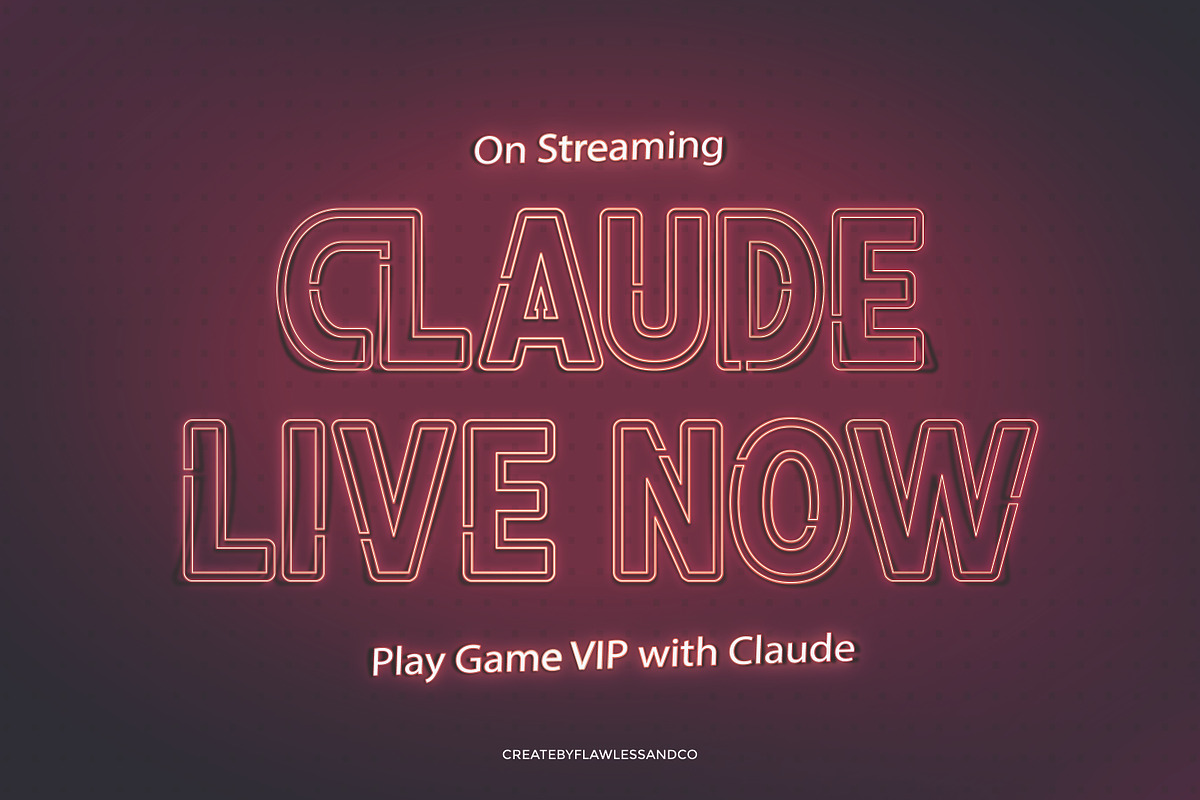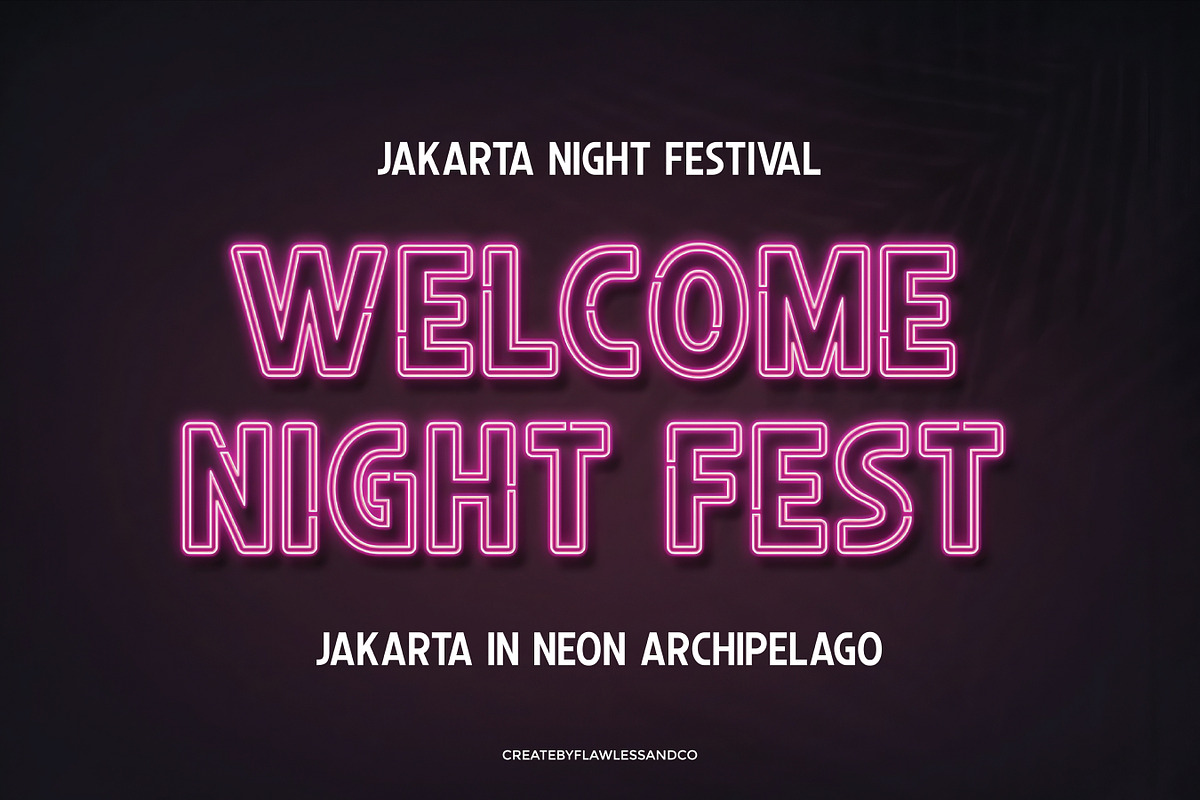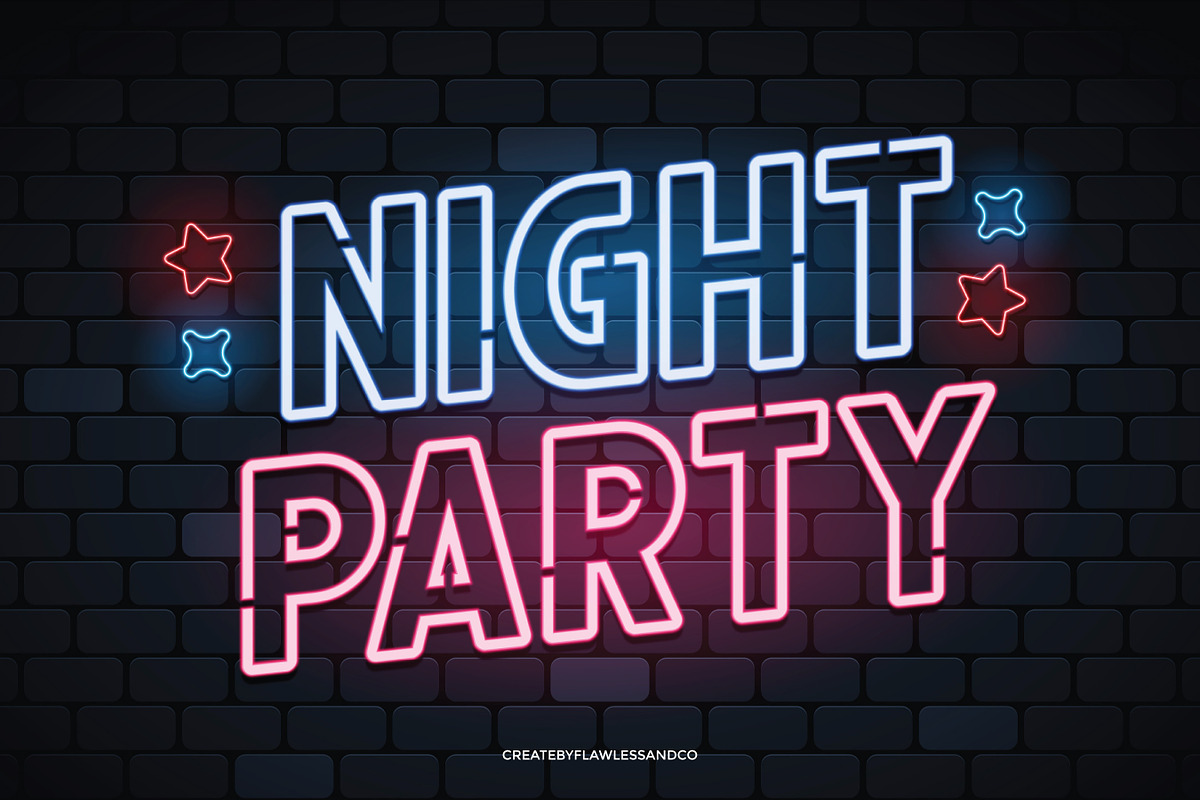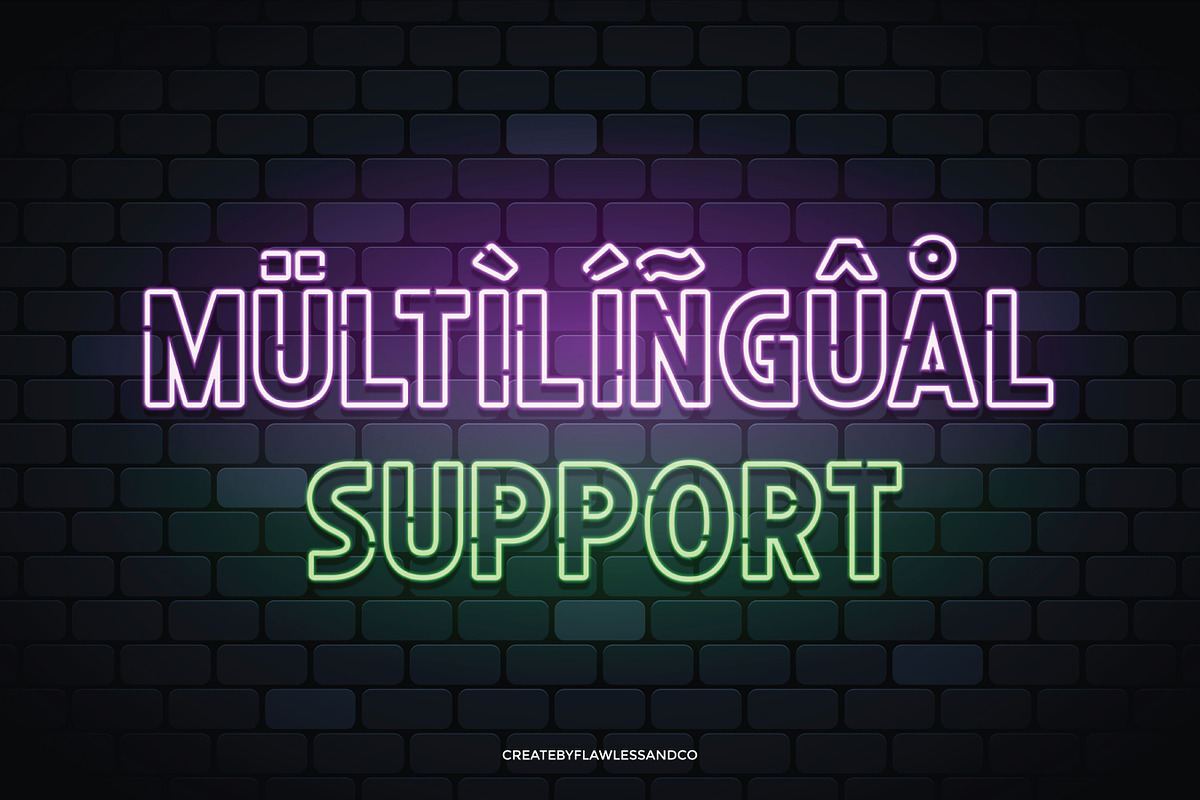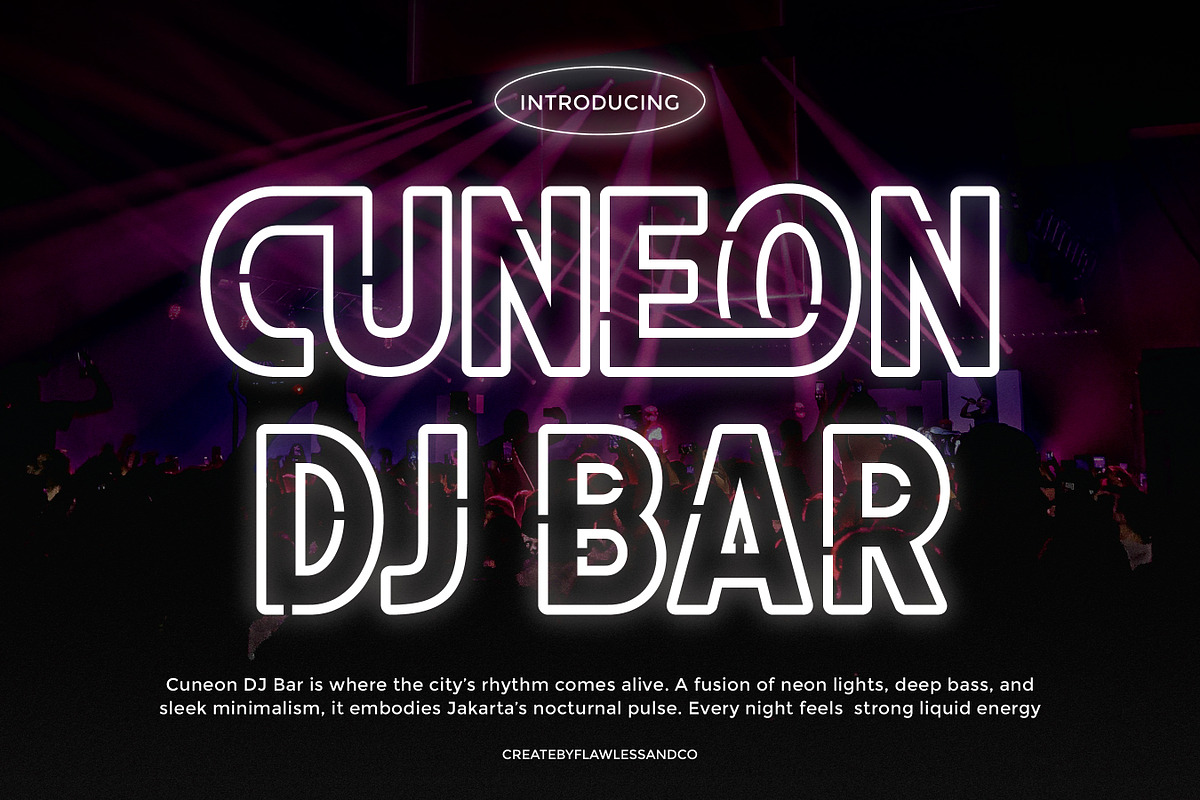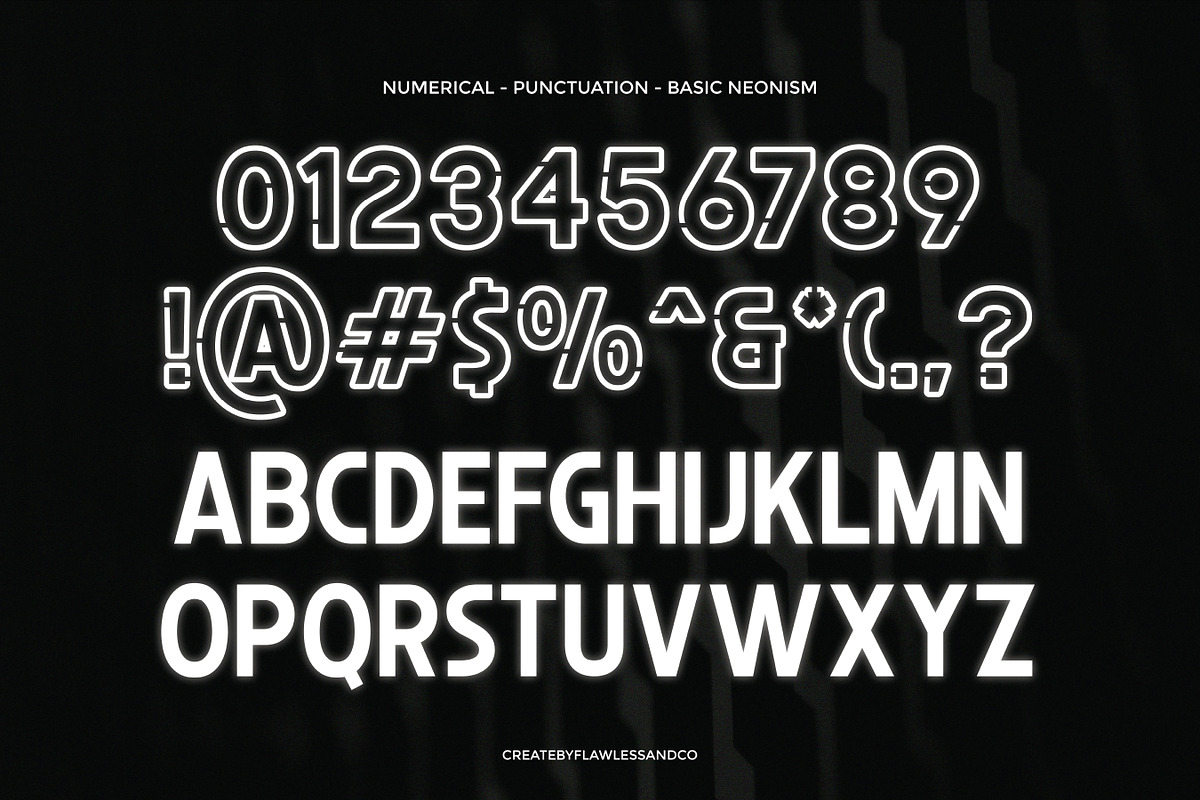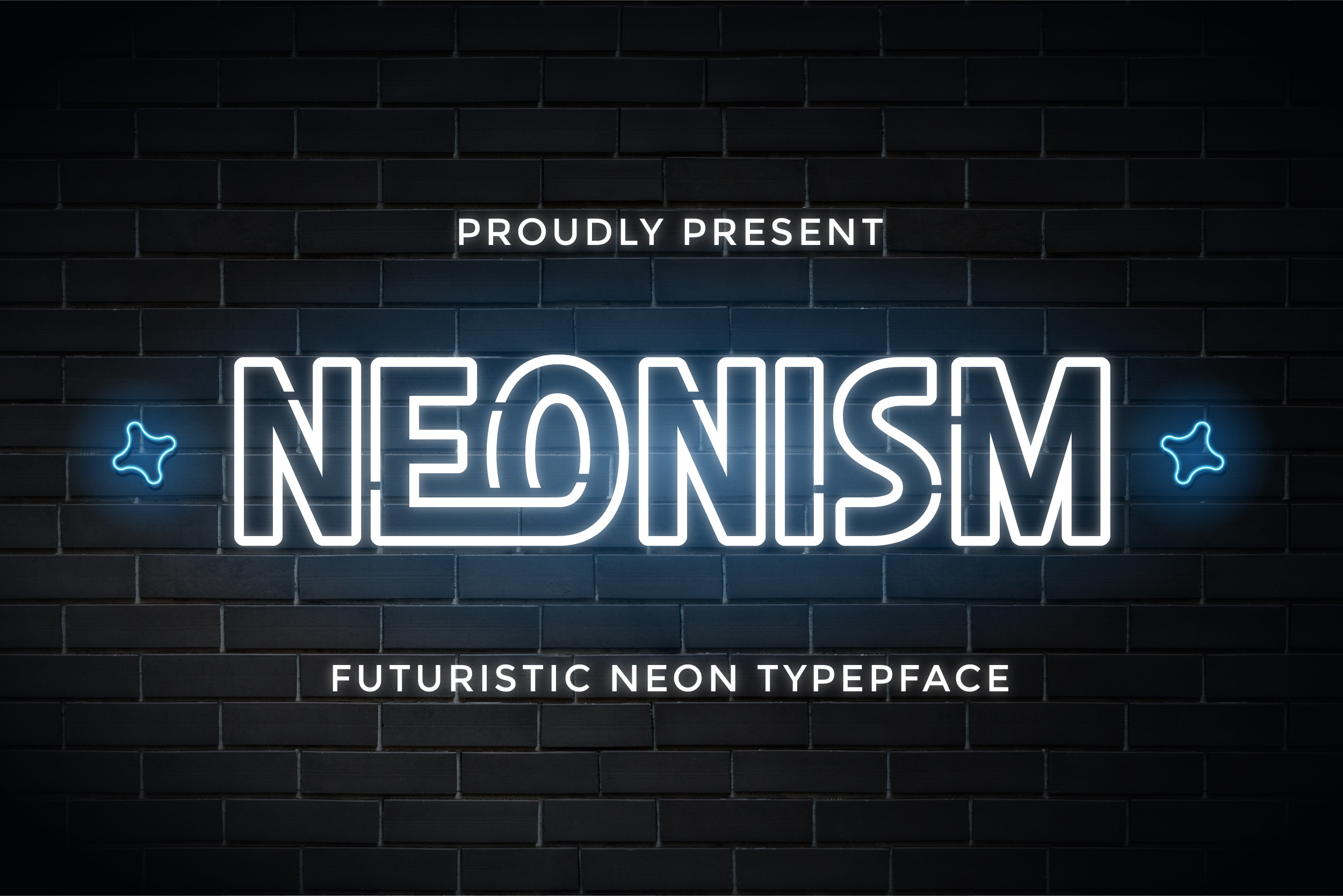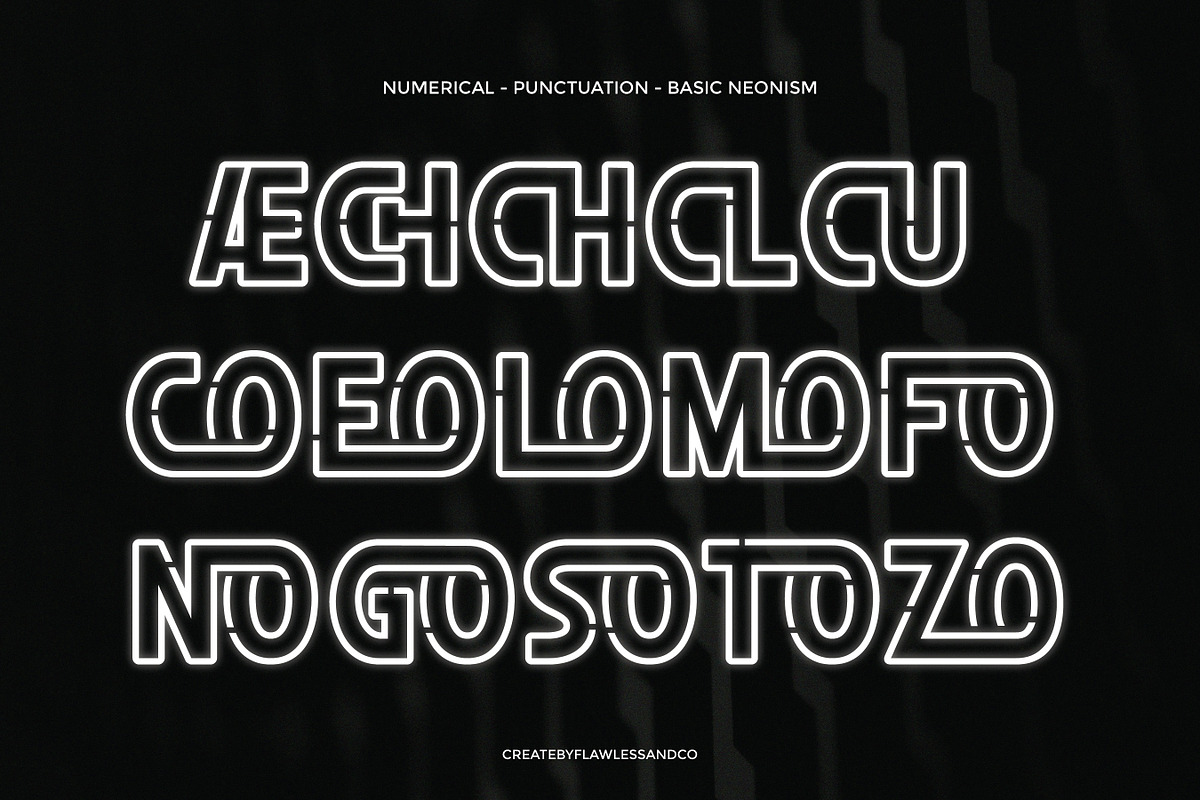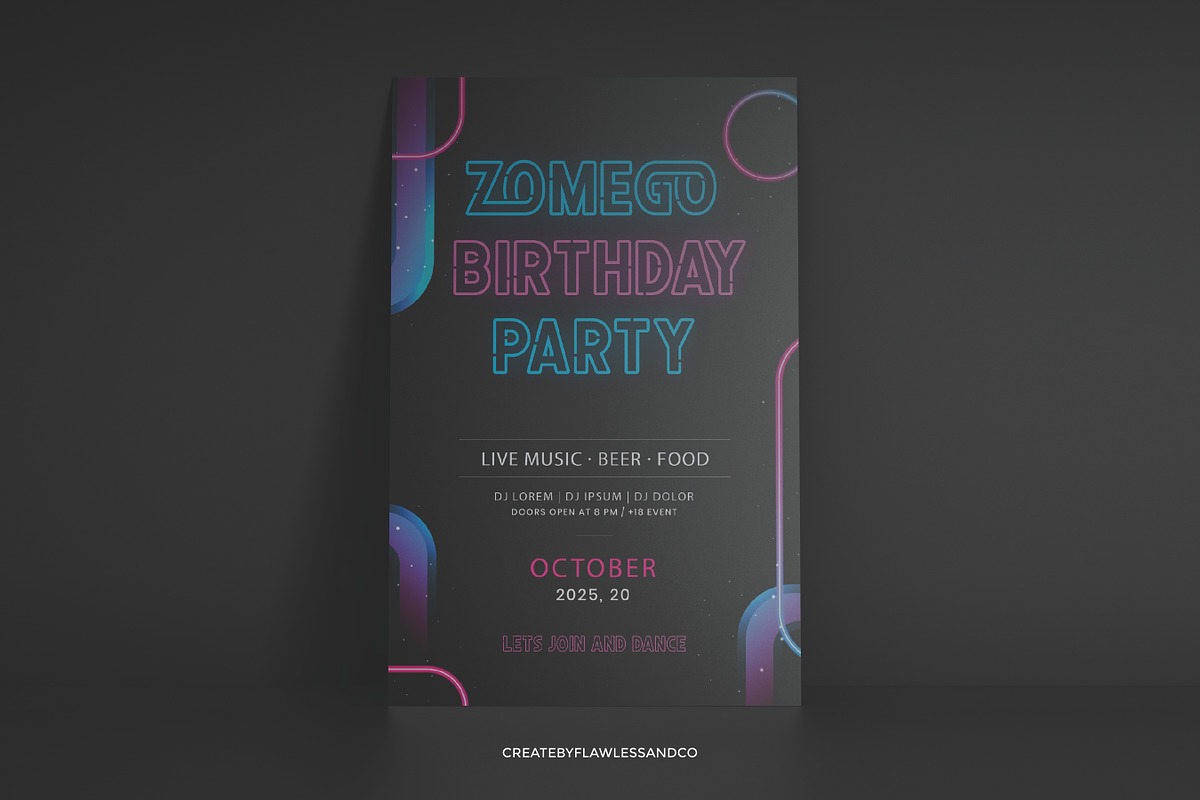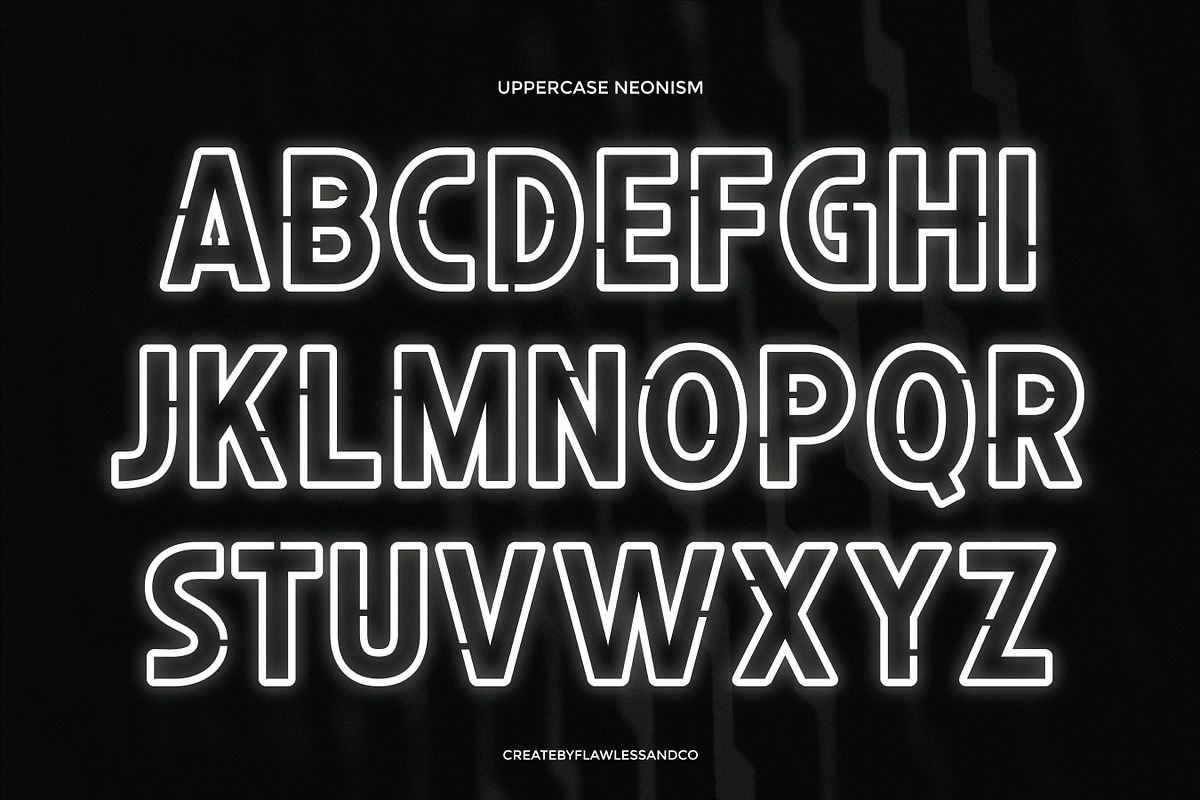
Neonism – Futuristic Neon Typeface
Step into the future with Neonism, a bold futuristic neon font that brings the vibrant energy of glowing lights straight into your designs. Inspired by cyberpunk aesthetics and retro-futuristic signage, Neonism combines clean geometry with an electrifying glow effect—perfect for creating visuals that feel modern, sleek, and full of life. Whether you’re designing for tech brands, digital interfaces, nightlife promotions, or gaming visuals, Neonism delivers a stunning futuristic impression that instantly captures attention.
Who Should Use Neonism?
Neonism is made for designers, brands, and creatives who want to bring a modern, glowing, and futuristic touch to their visuals. It’s the perfect choice for those who love bold, high-energy designs that stand out — day or night. Whether you’re creating tech-inspired logos, neon posters, or gaming visuals, Neonism gives your projects that electric, high-impact look that instantly grabs attention and sets your design apart.
A Must-Have Font for “Brand and Logo” Creators and Designers
Neonism is a must-have typeface for brand builders, logo designers, and creative professionals who seek a bold futuristic identity. Its glowing neon aesthetic brings a vibrant, high-tech energy that’s perfect for modern brands, nightlife concepts, tech startups, entertainment, and gaming visuals.
Why Choose Neonism for “Brand and Logo” Projects?
Choose Neonism if you want your brand or logo to stand out with bold futuristic style and glowing energy. This font captures the essence of modern technology, nightlife, and innovation, making it perfect for projects that need a striking and unforgettable visual identity.
Suitable For:
- Futuristic brand identities and logo designs
- Tech and startup branding projects
- Nightlife, bar, and club visual identities
- Game titles, streaming covers, and esports graphics
- Music events, concert posters, and DJ promotions
- Social media graphics and digital advertisements
- Product packaging and merchandise with a neon or sci-fi theme